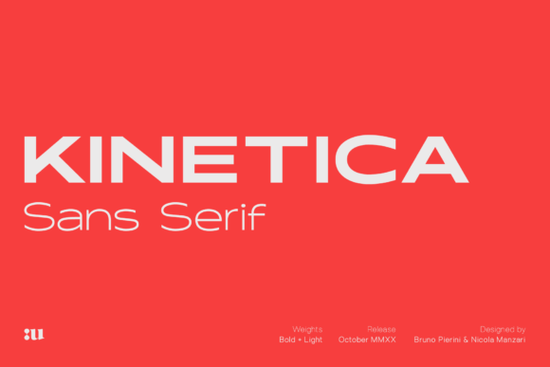
If you need a clean, modern typeface that still carries momentum, Kinetica Font fills that gap. It is a wide, high-impact display family built for readability at size while keeping a sharp, minimalist finish. The designer drew inspiration from global movement and streamlined street signage, which shows up in deliberate spacing and a forward-leaning posture. You receive two solid weights Light and Bold each paired with true, mathematically matched obliques instead of artificially slanted italics. That technical detail matters when you set up posters, packaging, or website headers that must stay crisp across devices.
What sets Kinetica apart from standard neo-grotesque families?
Standard sans-serifs usually prioritize quiet utility. Kinetica keeps that foundation but adds intentional width and geometric rhythm. Thick downstrokes contrast cleanly against open counters, giving headlines immediate presence. When paired with simple layouts or subtle photography, the type commands attention without fighting for space. This balance suits small business branding where logos or banners must read clearly on mobile and large prints. If you want to compare spacing and weight ratios elsewhere in the category, browsing the Avoda Font collection helps you evaluate alternative structural choices before picking a primary typeface.
Where should you place this typeface in your workflow?
Use Kinetica primarily for headlines. Its horizontal stretch favors short lines over dense paragraphs. Print-on-demand sellers rely on it for product mockups, event flyers, and apparel graphics. Crafters using vinyl cutters or resin molds value how clean outer edges transfer to physical surfaces without blurring. Social media managers apply it to quote cards and campaign banners where fast scanning boosts engagement. Editorial teams pick the Light weight for pull quotes, saving Bold for cover treatments. Matching obliques preserve consistency when emphasis is needed without adding new families.
Can it handle multilingual campaigns and global branding?
Yes. It includes extended Latin coverage, allowing localization across European and American markets without swapping fonts. Maintaining visual continuity across translated assets saves production time. Verify specific diacritical marks or currency symbols before uploading files to your storefront, and check the official specs for Kinetica to confirm included code points.
- Align baselines carefully: Wide faces sit slightly higher; adjust leading to avoid cramped descenders.
- Pair intentionally: Use a narrow sans-serif for body text to preserve clear hierarchy.